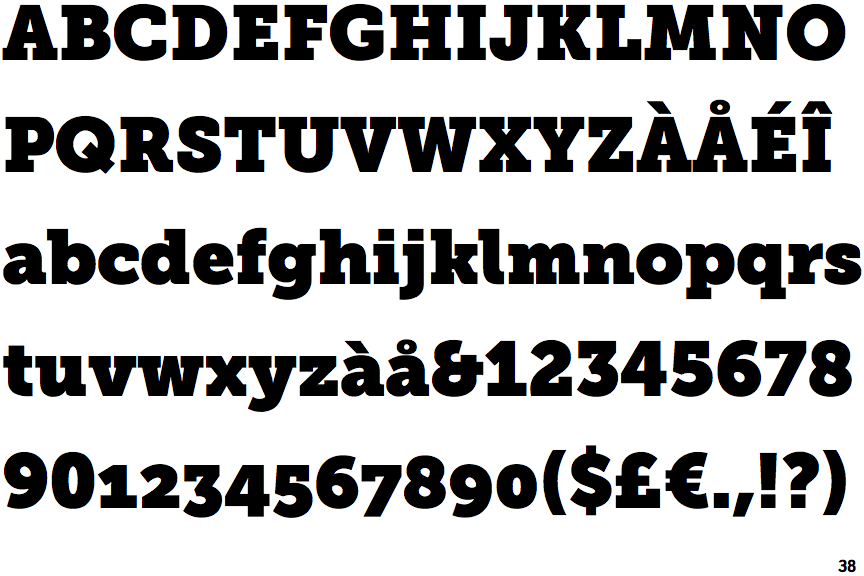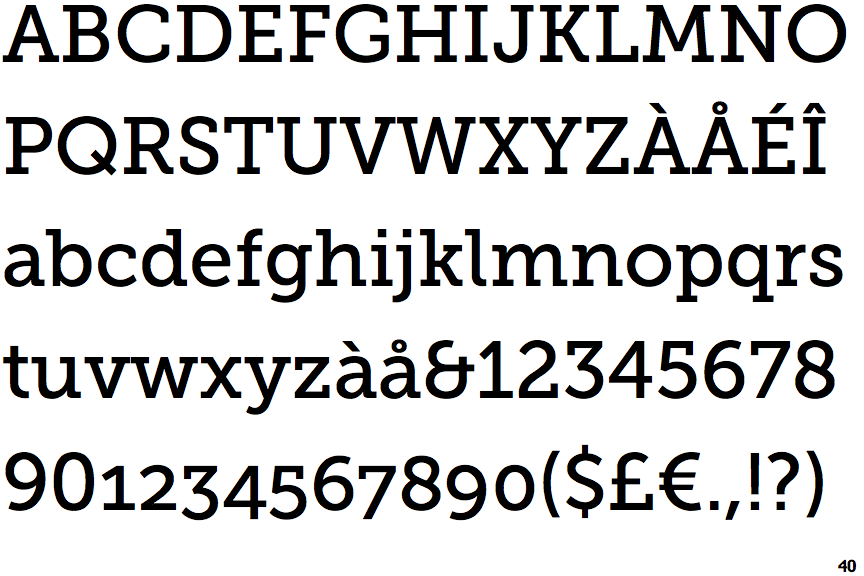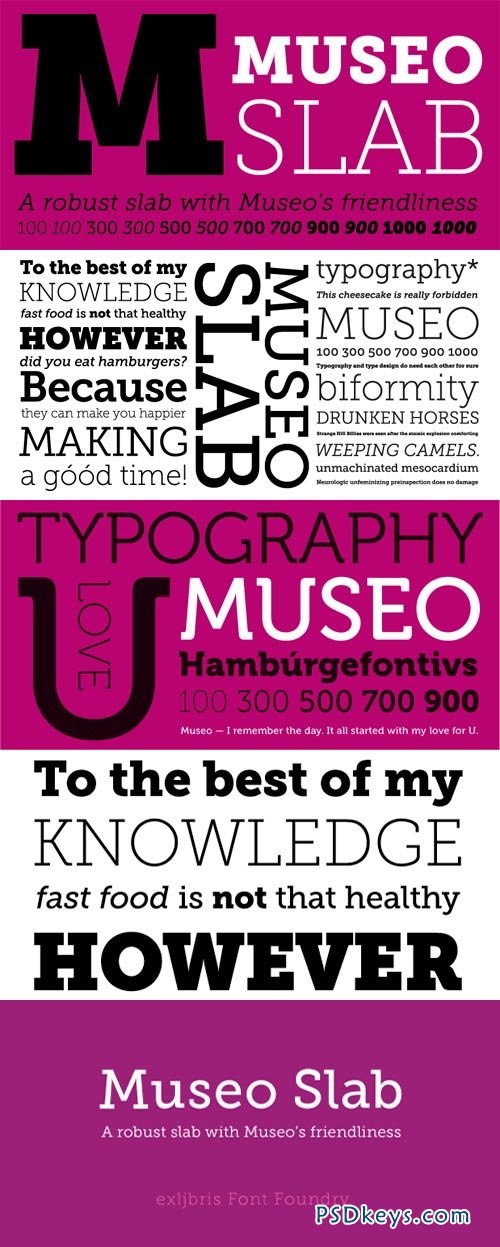
Museo Slab Font
Museo Slab Font - It’s a modern and friendly font with 24 styles, available for sync. Museo slab is the slab serif version of the well known museo font family. It is a perfect match for museo sans. Museo slab is a robust slab serif with museo's friendliness. Museo slab 500 and museo slab 500 italics are. Modern and powerful, yet legible, museo slab 500 works admirably for branding.
Museo slab is the slab serif version of the well known museo font family. It’s a modern and friendly font with 24 styles, available for sync. Museo slab 500 and museo slab 500 italics are. Museo slab is a robust slab serif with museo's friendliness. Modern and powerful, yet legible, museo slab 500 works admirably for branding. It is a perfect match for museo sans.
Museo slab is a robust slab serif with museo's friendliness. Museo slab 500 and museo slab 500 italics are. Modern and powerful, yet legible, museo slab 500 works admirably for branding. It’s a modern and friendly font with 24 styles, available for sync. It is a perfect match for museo sans. Museo slab is the slab serif version of the well known museo font family.
Museo slab is the slab serif version of the well known museo font family. It’s a modern and friendly font with 24 styles, available for sync. Museo slab is a robust slab serif with museo's friendliness. It is a perfect match for museo sans. Modern and powerful, yet legible, museo slab 500 works admirably for branding.
Modern and powerful, yet legible, museo slab 500 works admirably for branding. Museo slab is a robust slab serif with museo's friendliness. Museo slab 500 and museo slab 500 italics are. It is a perfect match for museo sans. It’s a modern and friendly font with 24 styles, available for sync.
Museo slab 500 and museo slab 500 italics are. Modern and powerful, yet legible, museo slab 500 works admirably for branding. It’s a modern and friendly font with 24 styles, available for sync. Museo slab is the slab serif version of the well known museo font family. Museo slab is a robust slab serif with museo's friendliness.
Museo slab 500 and museo slab 500 italics are. Museo slab is a robust slab serif with museo's friendliness. It’s a modern and friendly font with 24 styles, available for sync. Modern and powerful, yet legible, museo slab 500 works admirably for branding. Museo slab is the slab serif version of the well known museo font family.
Museo slab is a robust slab serif with museo's friendliness. It’s a modern and friendly font with 24 styles, available for sync. Museo slab is the slab serif version of the well known museo font family. Museo slab 500 and museo slab 500 italics are. It is a perfect match for museo sans.
It’s a modern and friendly font with 24 styles, available for sync. Museo slab is a robust slab serif with museo's friendliness. Museo slab 500 and museo slab 500 italics are. Modern and powerful, yet legible, museo slab 500 works admirably for branding. Museo slab is the slab serif version of the well known museo font family.
Modern and powerful, yet legible, museo slab 500 works admirably for branding. Museo slab 500 and museo slab 500 italics are. It’s a modern and friendly font with 24 styles, available for sync. Museo slab is the slab serif version of the well known museo font family. It is a perfect match for museo sans.
Museo slab is a robust slab serif with museo's friendliness. It’s a modern and friendly font with 24 styles, available for sync. Museo slab is the slab serif version of the well known museo font family. Museo slab 500 and museo slab 500 italics are. It is a perfect match for museo sans.
Museo slab is the slab serif version of the well known museo font family. Modern and powerful, yet legible, museo slab 500 works admirably for branding. Museo slab is a robust slab serif with museo's friendliness. Museo slab 500 and museo slab 500 italics are. It is a perfect match for museo sans.
Modern and powerful, yet legible, museo slab 500 works admirably for branding. Museo slab 500 and museo slab 500 italics are. It’s a modern and friendly font with 24 styles, available for sync. It is a perfect match for museo sans. Museo slab is the slab serif version of the well known museo font family.
Museo Slab 500 And Museo Slab 500 Italics Are.
Modern and powerful, yet legible, museo slab 500 works admirably for branding. Museo slab is the slab serif version of the well known museo font family. Museo slab is a robust slab serif with museo's friendliness. It is a perfect match for museo sans.